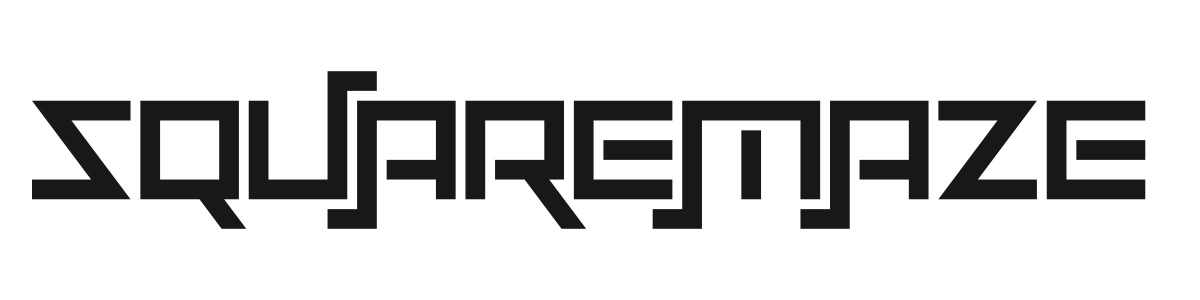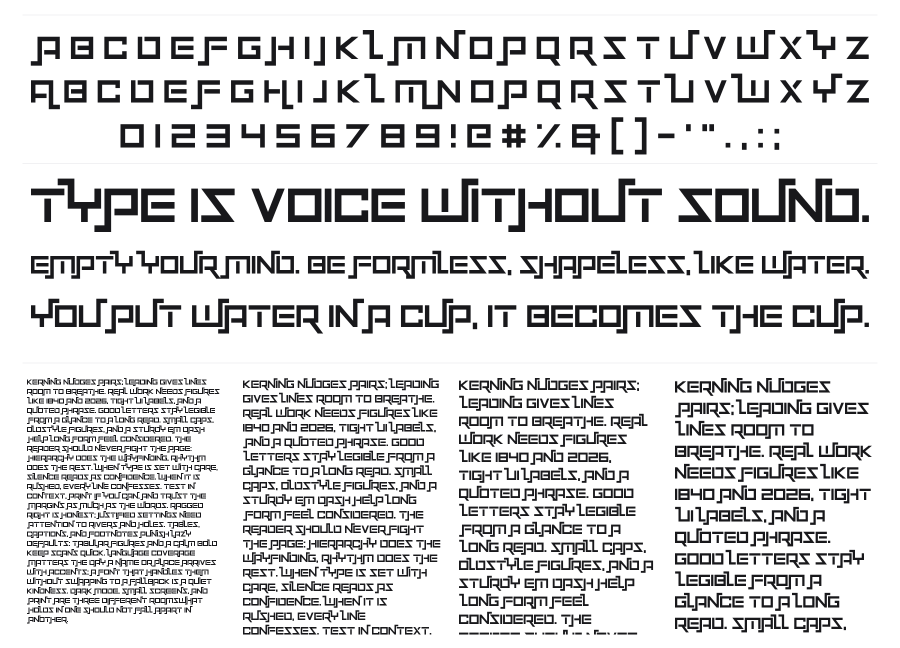
Squaremaze
Squaremaze is a bold geometric techno font built entirely from square-grid segments, giving every character the look of a maze or circuit board pathway. Stroke terminals cut at perfect right angles with no curves in sight, creating a relentlessly mechanical texture. The thick monoweight construction reads well at large sizes in gaming titles, tech branding, and sci-fi themed projects.